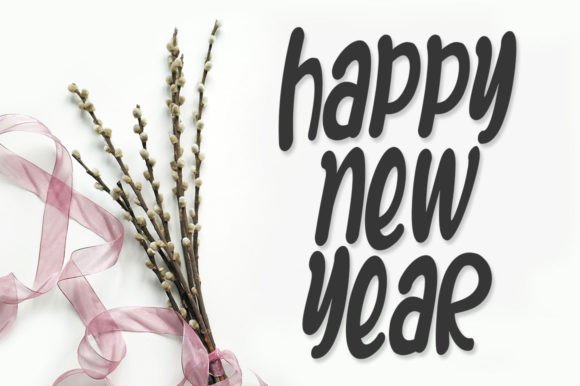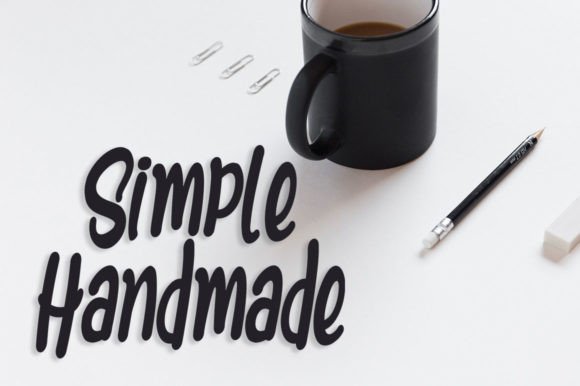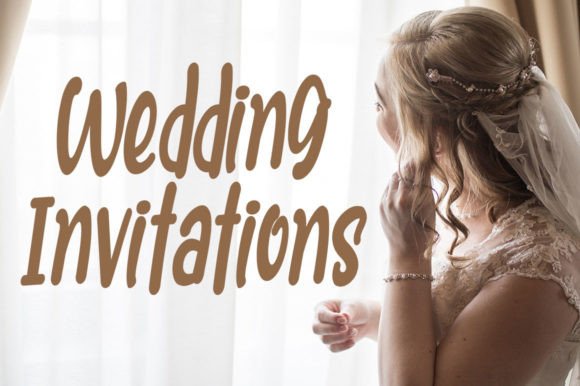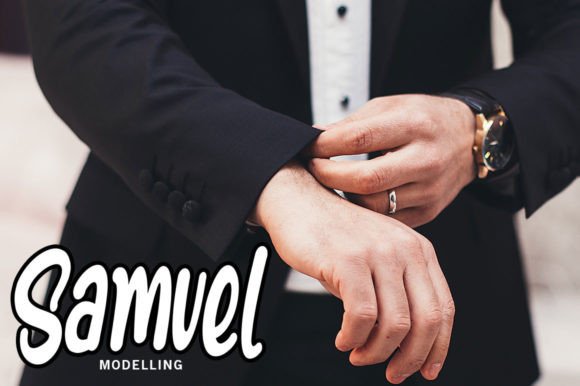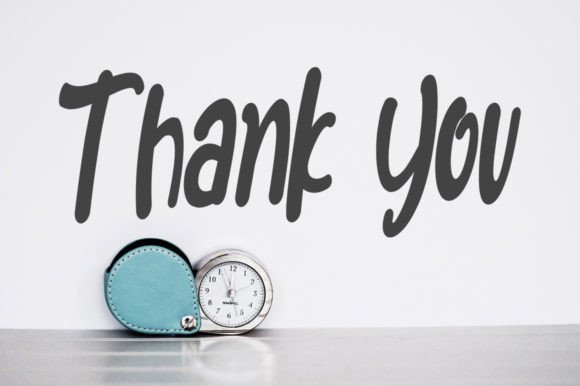
Shelby Font
A Simple and Authentic Handwritten Typeface
Shelby is a clean and versatile handwritten font designed to add warmth and authenticity to your projects. With its natural strokes and smooth flow, Shelby feels modern yet timeless. Whether you’re designing logos, invitations, or social media graphics, this font brings a personal touch that helps your work stand out.
Its understated style adapts beautifully to both casual and refined designs.
Shelby is a font you’ll enjoy using again and again. It’s perfect for greeting cards, event invitations, and thank you notes. The handwritten look makes any message feel friendly and personal.
For branding, Shelby works well on logos, product labels, and business cards. Its simple, clean style creates a professional impression while staying approachable and warm.
This font also shines on digital content like social media posts, blog headers, and website graphics. The smooth letterforms make your text easy to read and visually engaging.
Shelby is also ideal for posters, printables, and DIY projects. Its versatility means you can use it to complement many styles, from playful to elegant.
Even with its handcrafted look, Shelby stays clear and legible at any size. Balanced spacing and clean strokes ensure your text looks tidy in large titles or small captions.
For a modern and polished layout, pair Shelby with a minimalist sans-serif font. Use Shelby for feature text and the sans-serif for supporting content. This combination highlights the handwritten feel while keeping your designs organized.
To help Shelby stand out, use light backgrounds and soft color palettes. Neutral shades like ivory, beige, and pastel tones allow the script to pop without feeling overwhelming.
When creating invitations or branding materials, consider adding simple illustrations or subtle icons to enhance the natural look.
On social media, embrace white space to keep your posts clean and highlight your message.
Think about the mood you want to create. Shelby is perfect for designs that feel approachable, warm, and sincere.
Shelby isn’t just another script font—it’s a creative asset that adds authenticity and charm to any project. From professional branding to personal keepsakes, this font adapts easily and helps your designs look polished and unique.
Adding Shelby to your font collection means you’ll always have a reliable, versatile option ready to use. Whether you’re designing logos, greeting cards, or social media content, this font makes every idea feel special and memorable.